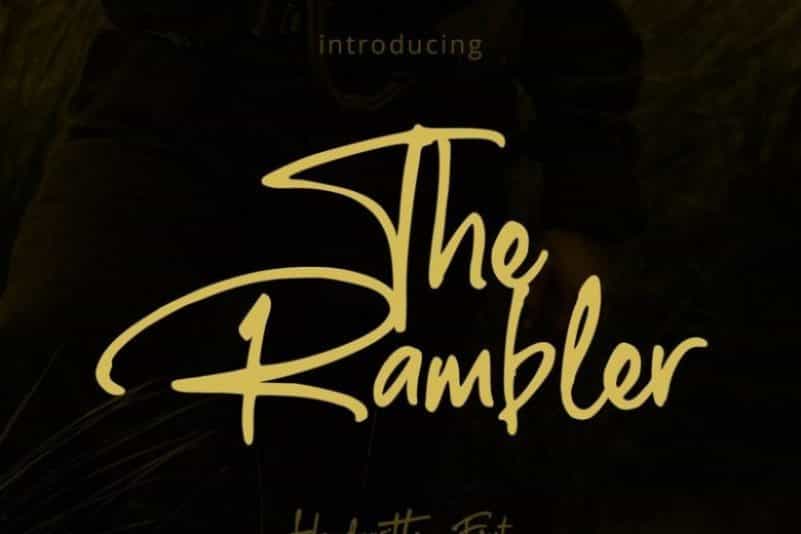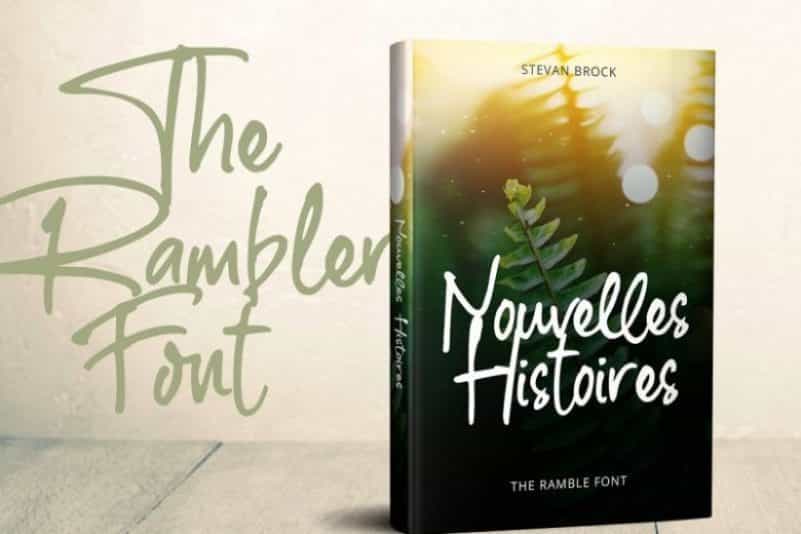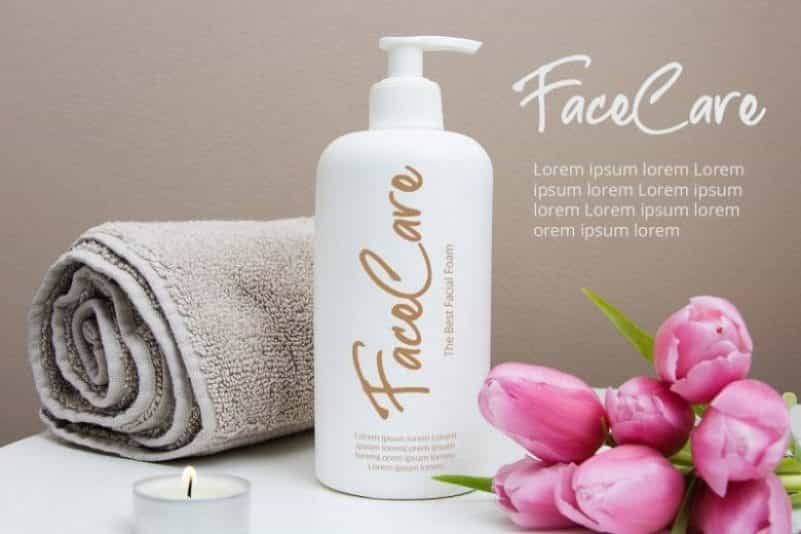
Discover The Rumbler Script Font, part of the Brush Handwritten collection—a versatile and unique font perfect for adding a personal touch to your projects. Download it for free and enjoy crafting designs with style, from invitations to social media posts. This font is available exclusively for personal use, giving you the freedom to create without limits. Unlock your creativity with The Rumbler Script Font today!
Here comes the new “The Rumbler” old signature typography font. A lovely vintage writing style font with an alternate and ligature to fulfill your requirements. This font also includes italic. Through the Opentype features included in it, this script becomes alive and you feel as if you are writing it yourself.